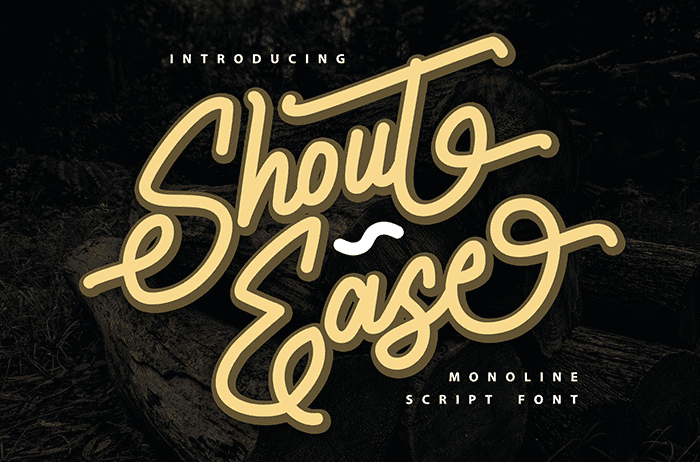
Shout Ease Script Font
Shout Ease Script Font is inspired by classic typography and brings its own unique style to any design project. This versatility will appeal to a wide range of crafty ideas. Thanks to Vunira Studio for sharing this font! Take a look at this portfolio for more of his stunning fonts.